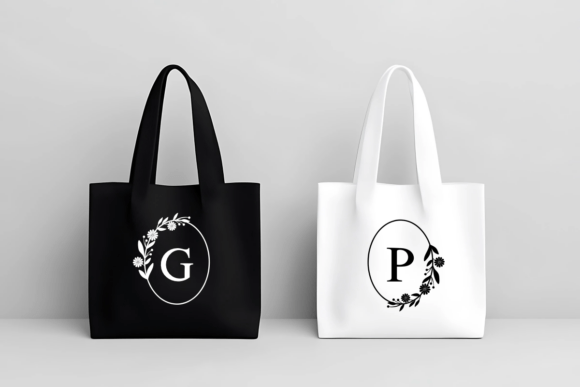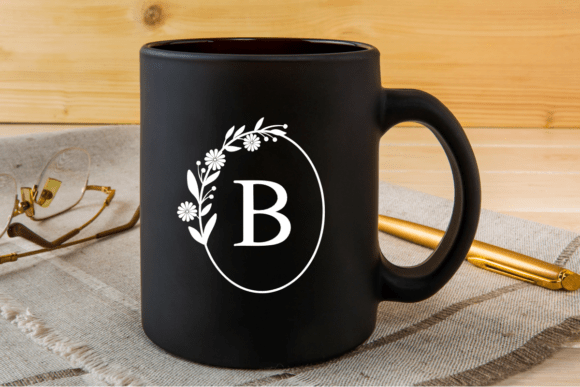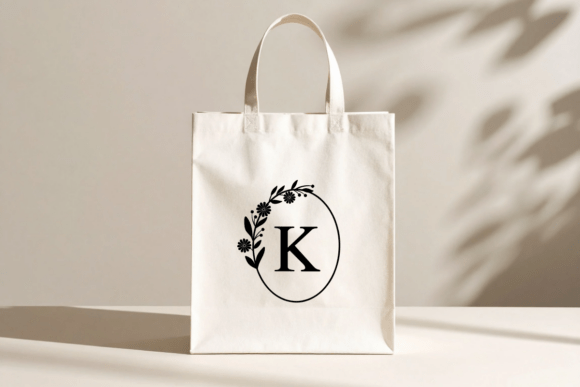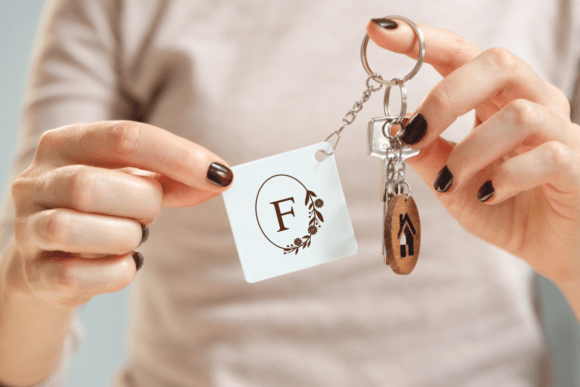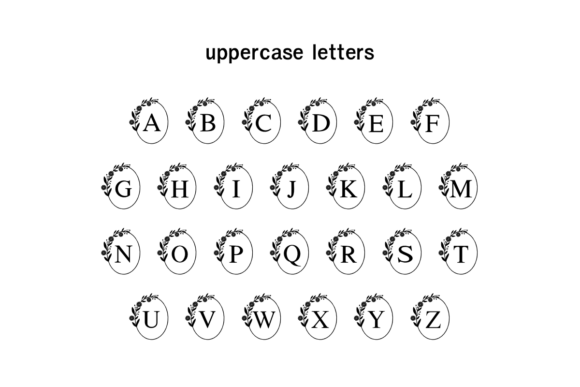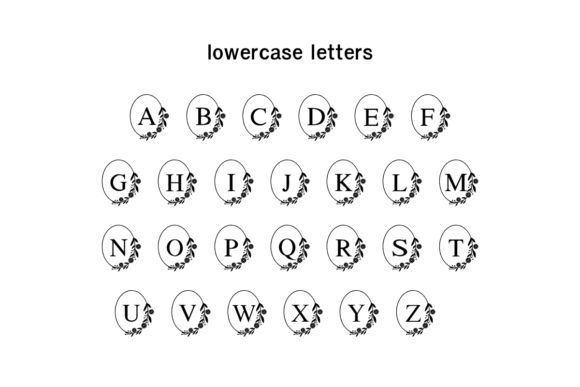
Introduction to Floral Oval Monogram Font
Floral Oval Monogram is a decorative font.
You can use it for taking notes, writing a diary, or making greeting cards However, you can still use it for other designs, such as banners, content, mugs, cards, shirts, stationery, social media posts, and more.
Key Features of Floral Oval Monogram Font
Why Choose Floral Oval Monogram Font?
Floral Oval Monogram Font offers exceptional quality and versatility, making it a valuable addition to your design toolkit. Whether you’re creating for personal projects or commercial use, Floral Oval Monogram Font delivers professional results.